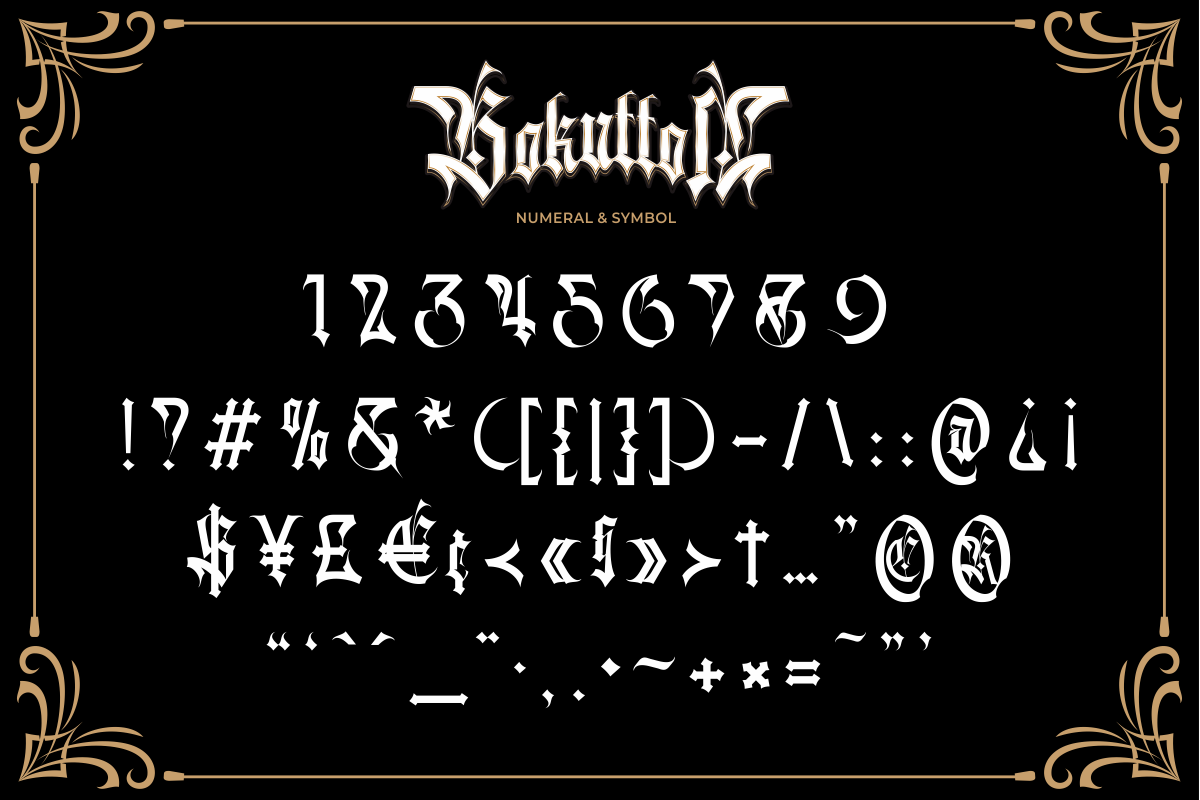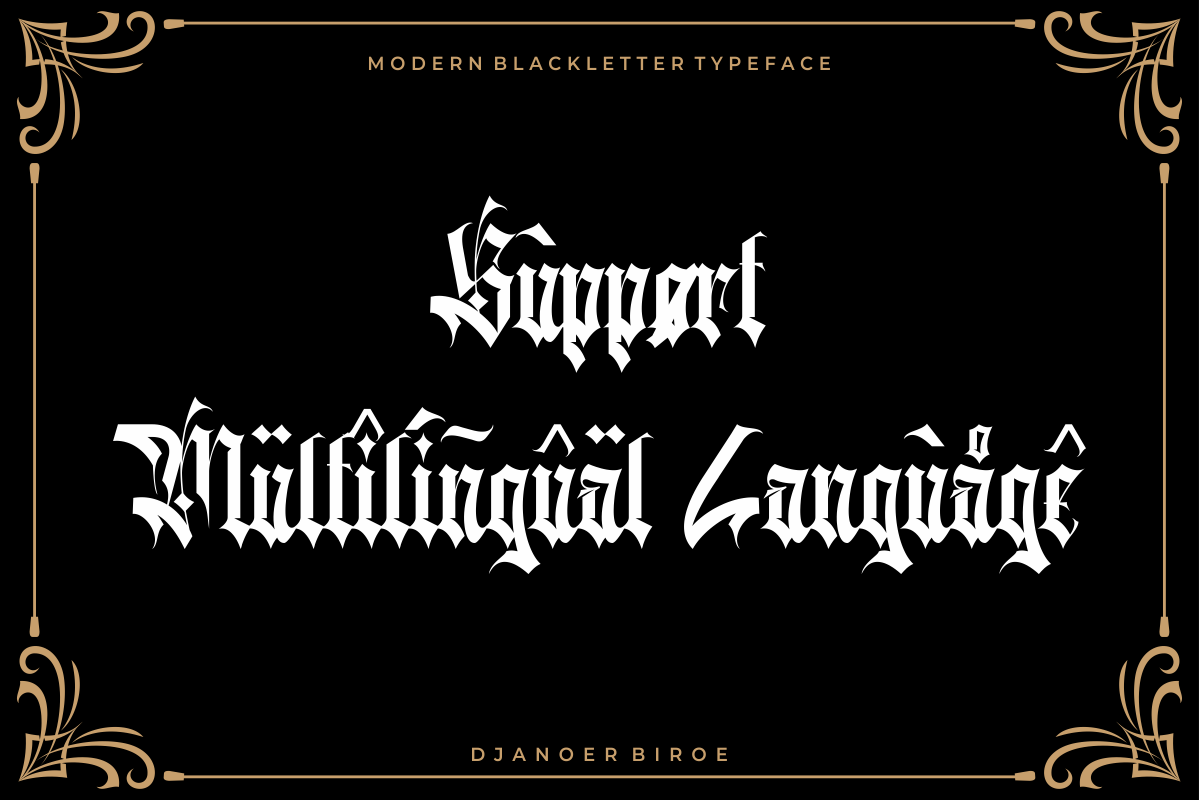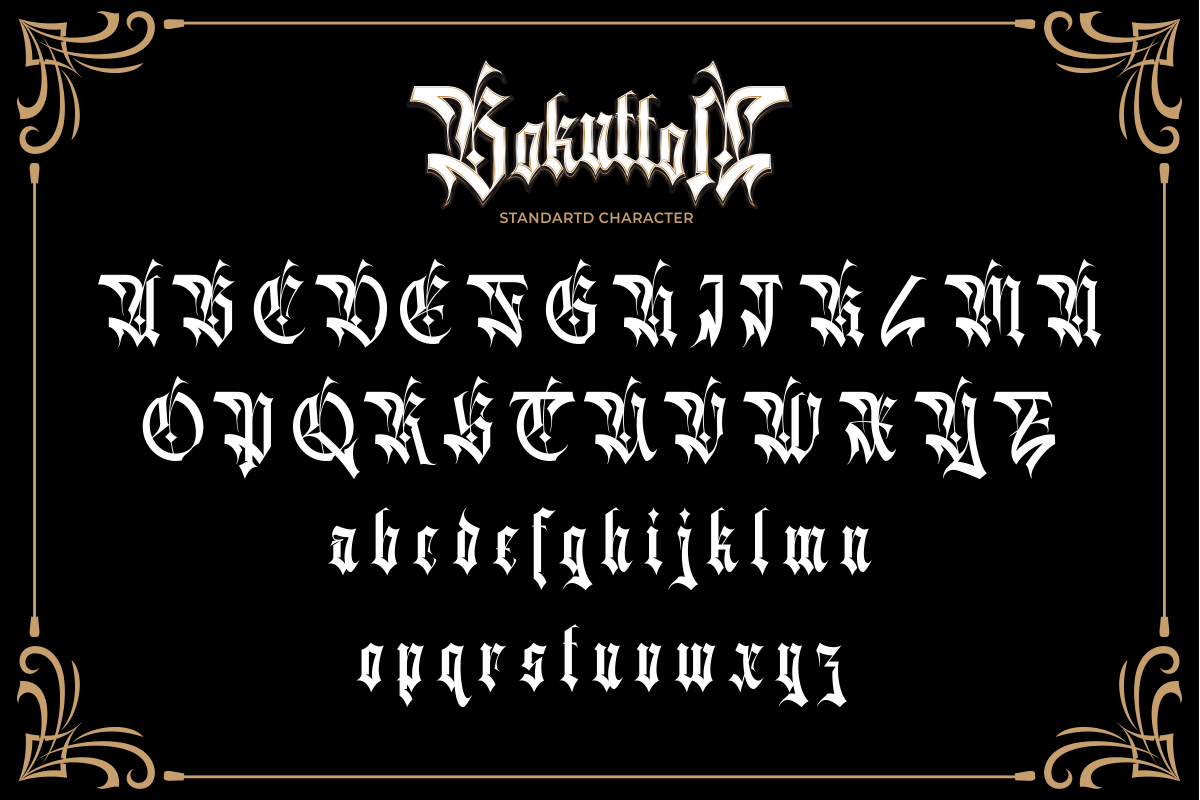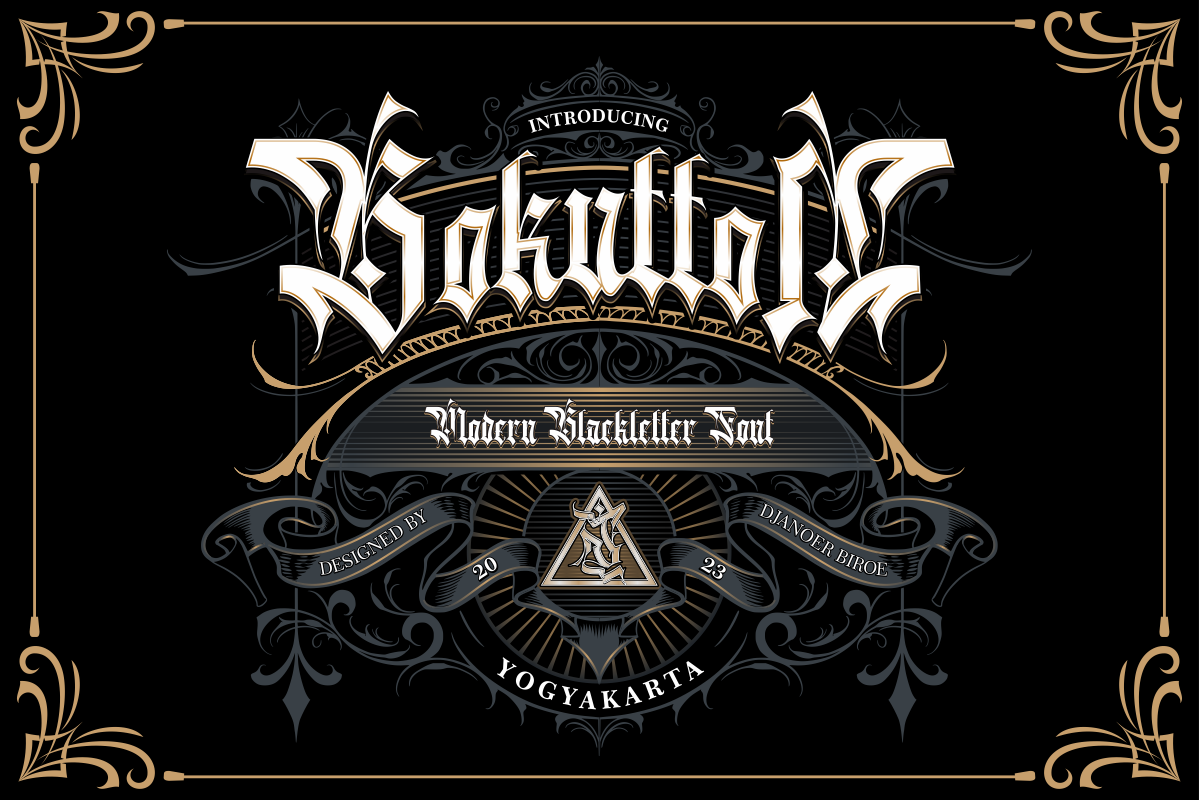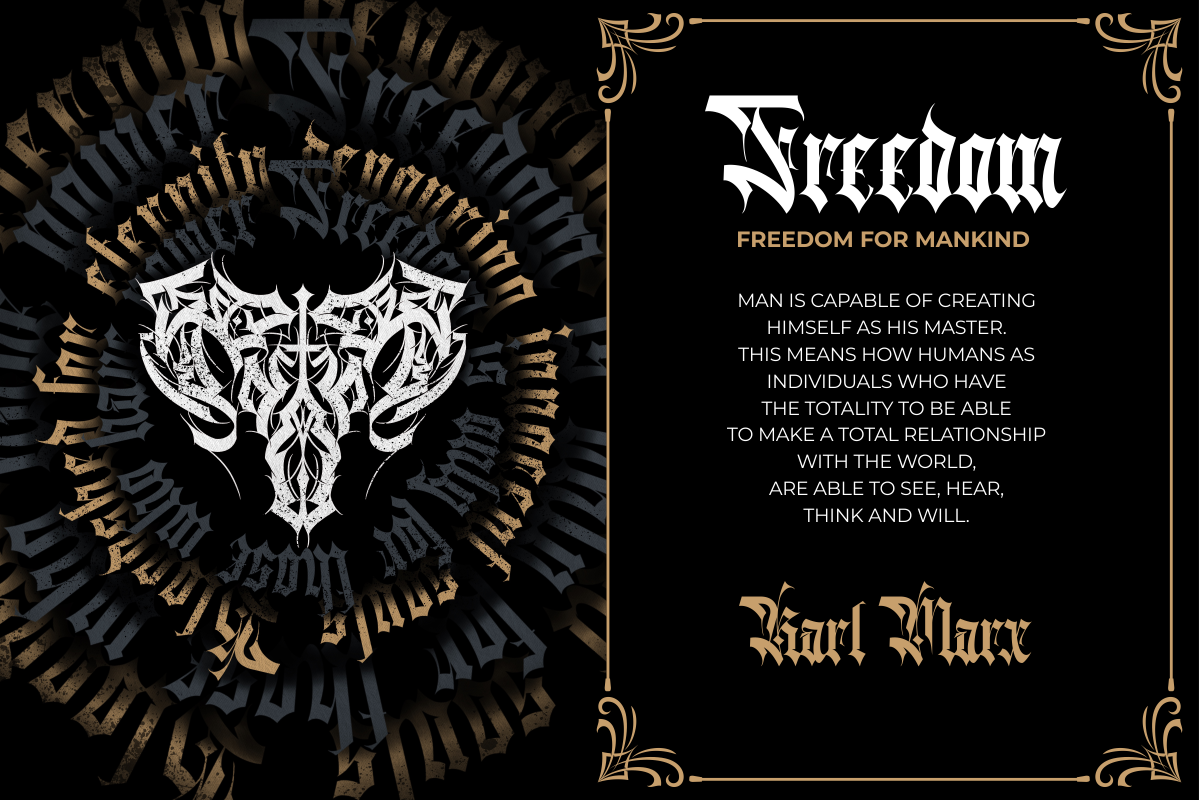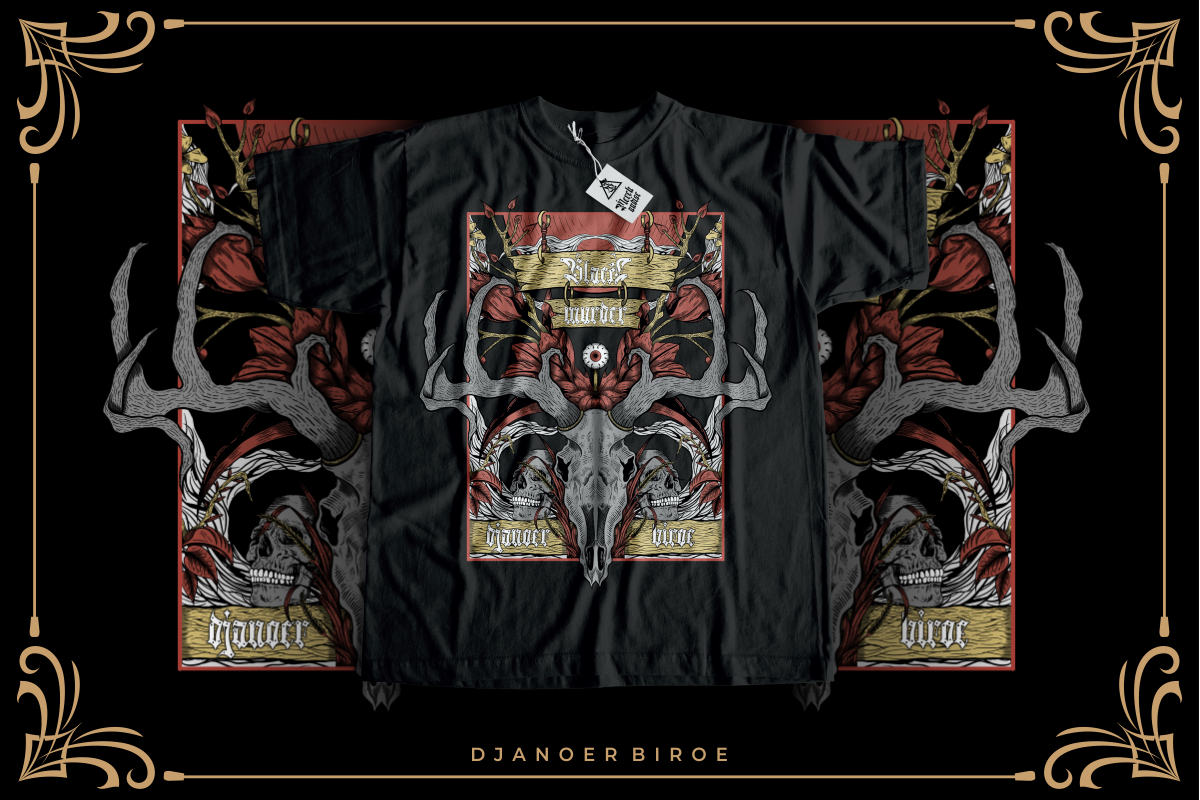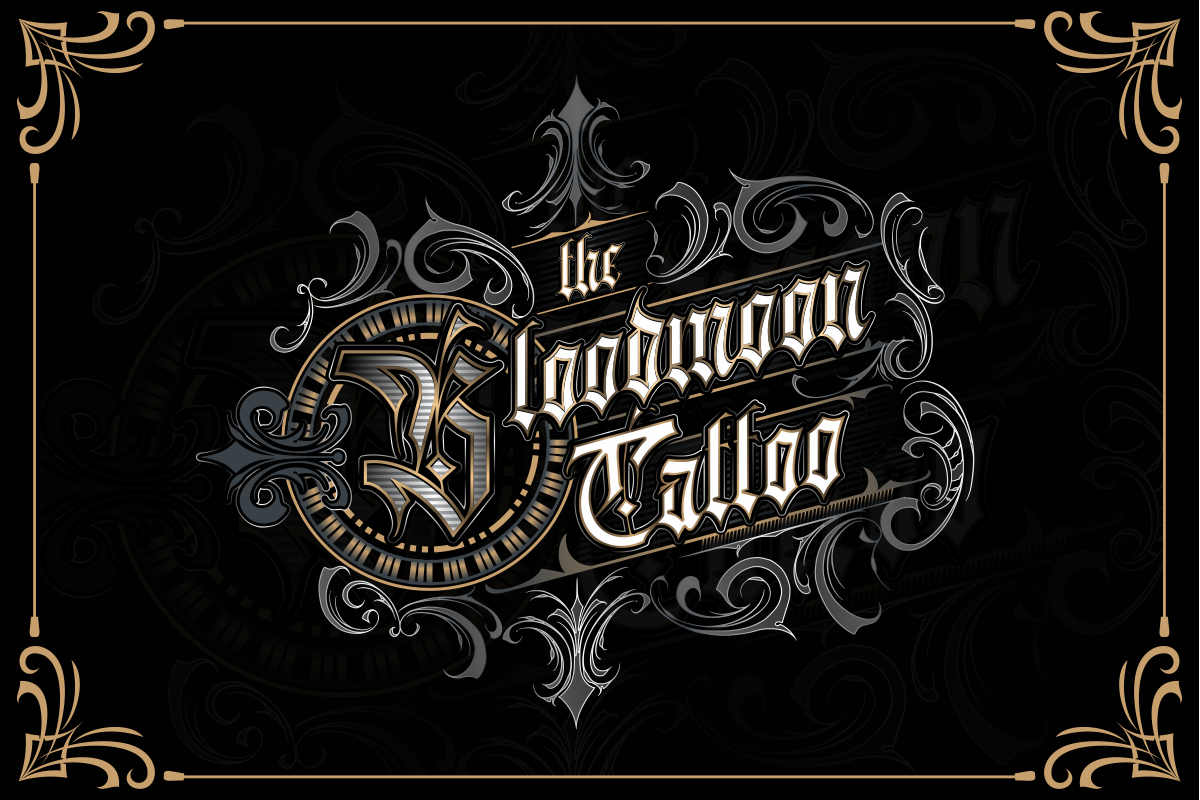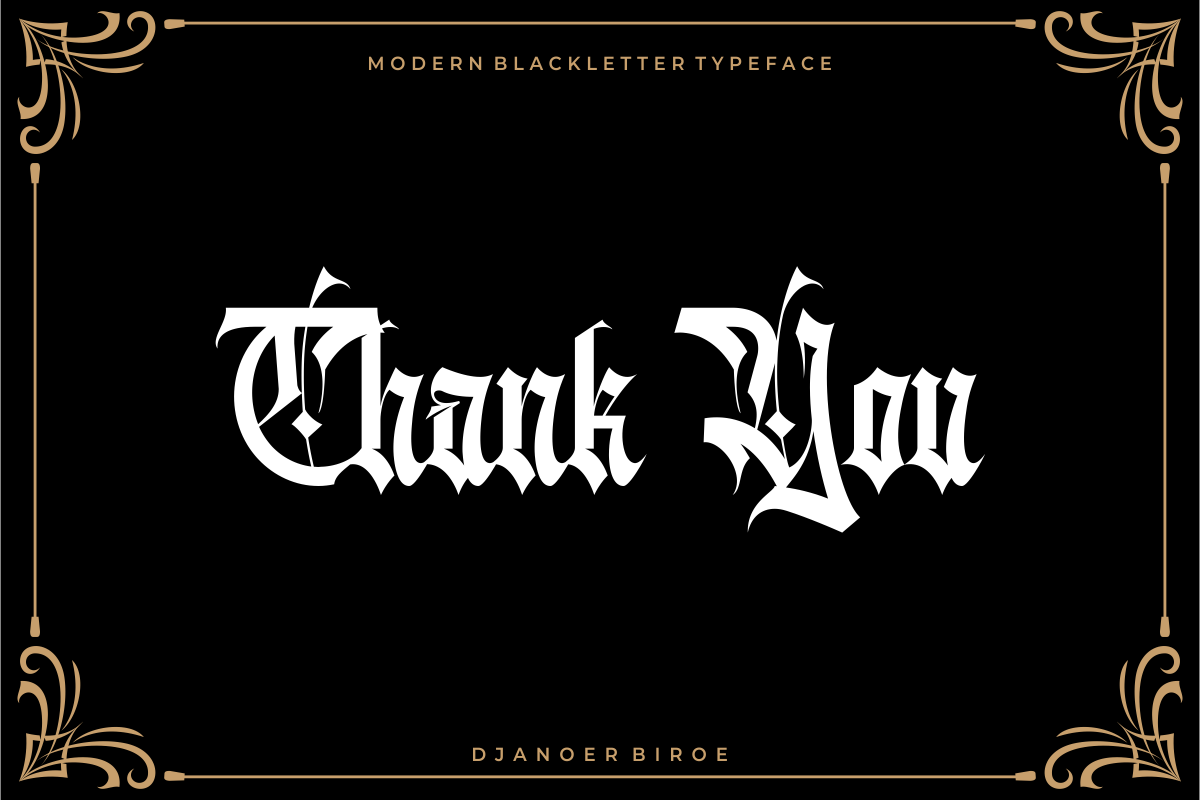
DB Bokutton Blackletter Typeface
Bokutton Blackletter Typeface by Bjanoer Biroe
Bokutton is a font that combines blackletter style with calligraphy. It is suitable for vintage, metal, tattoo, and modern designs because it blends traditional and modern elements. Bokutton has a strong blackletter style with bold letterforms and sharp angles, while also featuring flowing and elegant calligraphic elements. This combination makes Bokutton look unique and appealing for various design purposes.